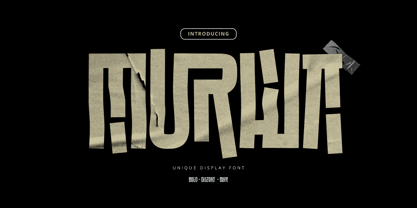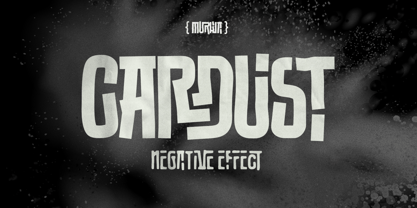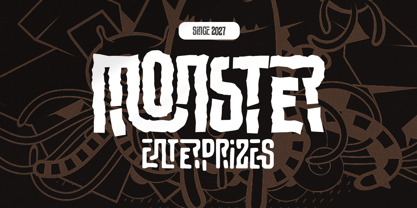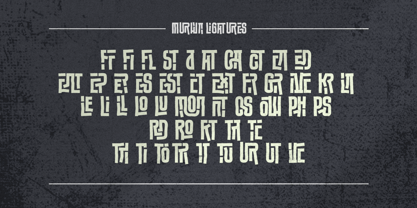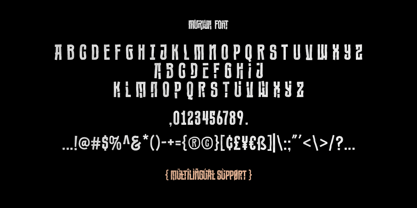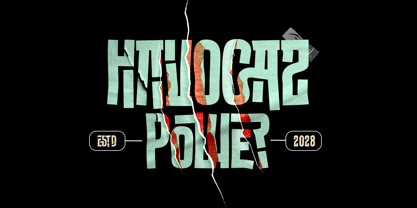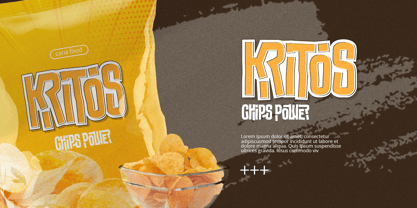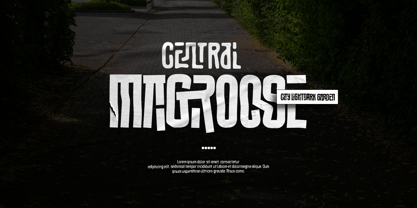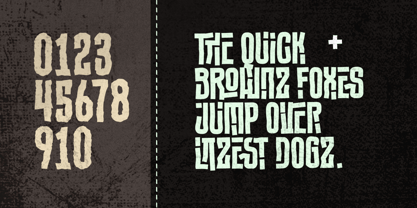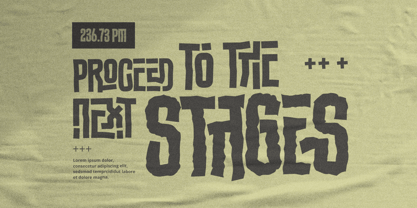
Murwa
The Murwa Font Family was designed by Jarnawi Saja and published by Grontype. Murwa contains 3 styles and family package options. More about this family
Murwa is a bold and distinctive decorative display font that commands attention. With its tough, striking letterforms and a rich set of stylistic ligatures, Murwa offers a powerful visual impact that stands out in any design. Its unique structure makes it ideal for headline treatments, bold branding concepts, and standout logotypes. Whether used for posters, packaging, or identity design, Murwa brings a strong personality and artistic flair to every composition.
Features:
• Decorative Family Font
• Unique Font
• Basic Latin Glyphs
• Numeral and Punctuation
• Currencies
• Multilingual Support